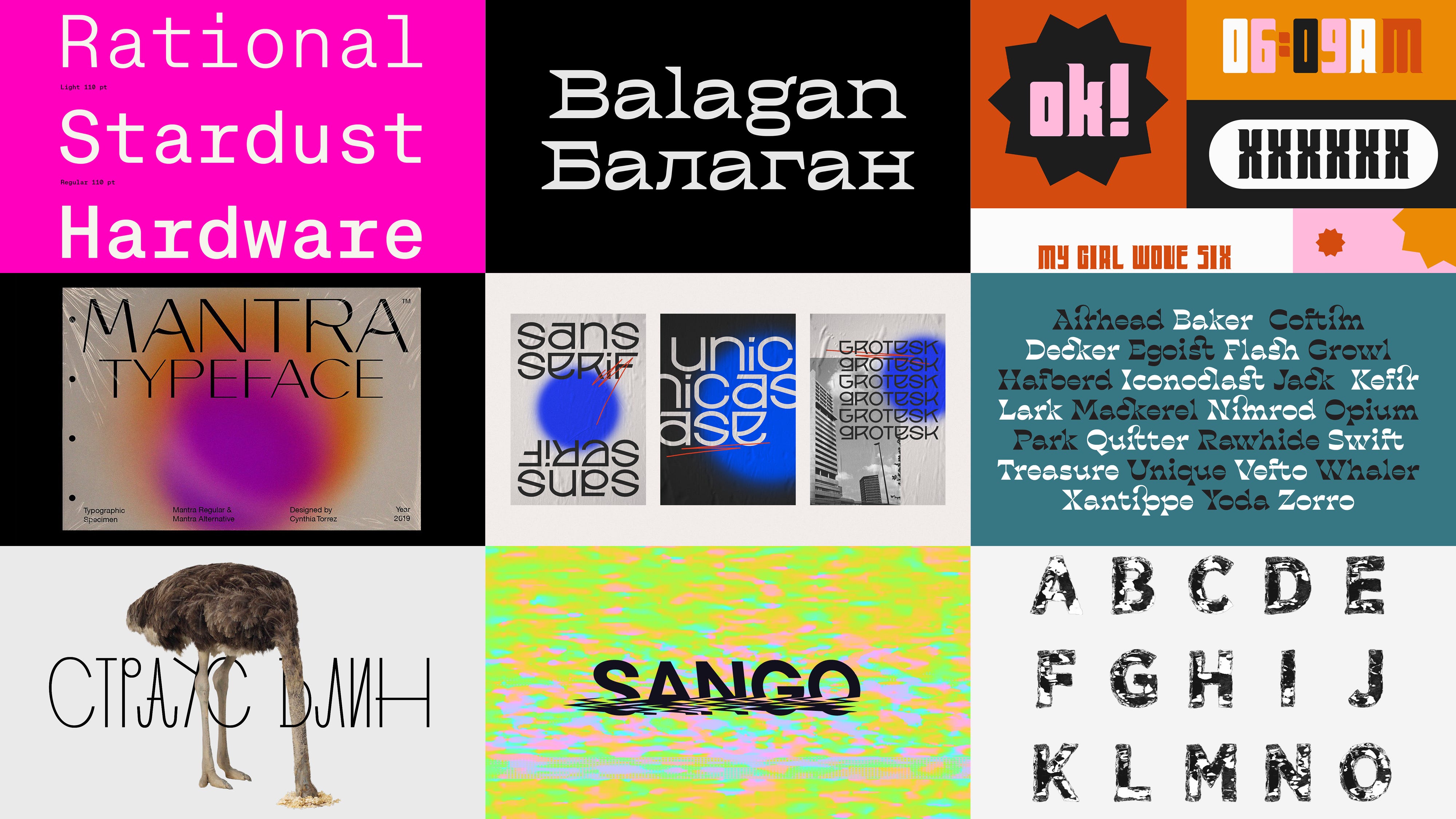
All fonts are categorized and can be saved for quick reference and comparison. One one side well see the modern sans serif fonts that have dominated the digital space continue to flourish and on the other colorful and expressive character fonts.
2021 Font Predictions Trends In Type To Know And Use
Most font are free with a few premium options mixed in if youre looking for something that really stands out. There are a few things were already starting to notice when it comes to typography this year. Many of the options in this list have these trending styles in mind.
Ocean is a modern all-caps free font that has a unique creative design. Each character of this font has certain elegance and flair associated with them. The key to this visually pleasing trend is the use of big-personality typography which adds rhythm and contrast to compositions.
This collection includes the best free script fonts serif fonts sans-serif fonts decorative fonts and much more to match any kind of design project youre working on. 2021 Free Fonts Type Trends at a Glance. Nevrada is a similar free font that can be used for designing badges logos and signage for hotels and luxury brands.
San serif stacked typography with three- to five- lines of text. These fonts were all created in 2020. To see some of our favorite examples have a look at our collection of Free Fonts which displays a wide variety of free.
Use of more serif font. 2020 is going to be split right down the middle when it comes to font trends. Check out more high quality commercial fonts and update your font library as per new trends.